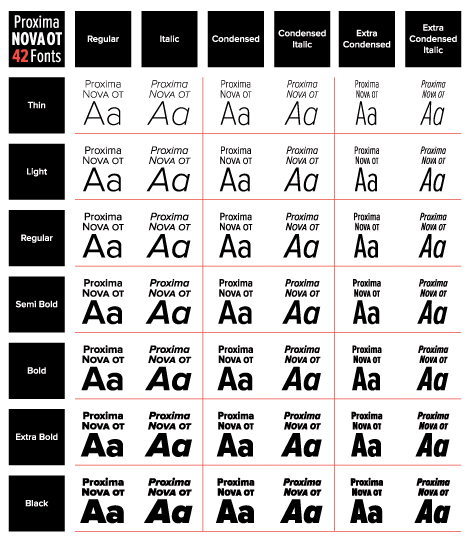
Proxima Nova Complete Family (42 Fonts) (Mark Simonson)
Although remarkably similar to Gotham, Proxima is a design originally named Zanzibar and conceived by Mark Simonson in 1981 whereby predating Gotham by more than 20 years. In 1994, the name was changed to Proxima Sans and released through FontHaus as a family of six fonts - three weights with matching italics. The name Proxima was chosen to acknowledge that it was near other sans serifs in design and also because the letters in the name displayed some of the more identifiable characteristics of the design. In the early 2000s, Mark began working on fonts again, and started to get suggestions to expand the Proxima Sans family. In 2003, Rolling Stone magazine chose it as part of their latest redesign. Inspired by this success, Mark began work on a new Proxima Sans family even more ambitious than he had originally envisioned. The result is Proxima Nova, a family of 42 fonts—seven weights and three widths with matching italics—built from the ground up for the OpenType format, with advanced typographic features and a range of styles wide enough to take on the most demanding typographic applications.FONTHAUS END USER LICENSE AGREEMENT